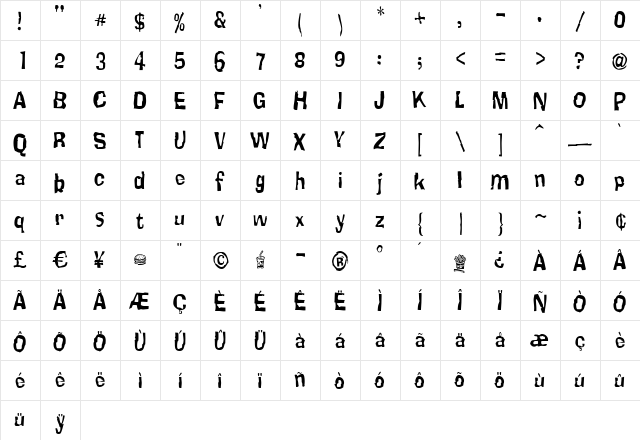
Knucklehead Medium Font Preview
Knucklehead Medium
Knucklehead Medium Font Details
Design Context for Knucklehead Typeface
Knucklehead is a composed and adaptable typeface that performs quietly and consistently across a wide range of design contexts.